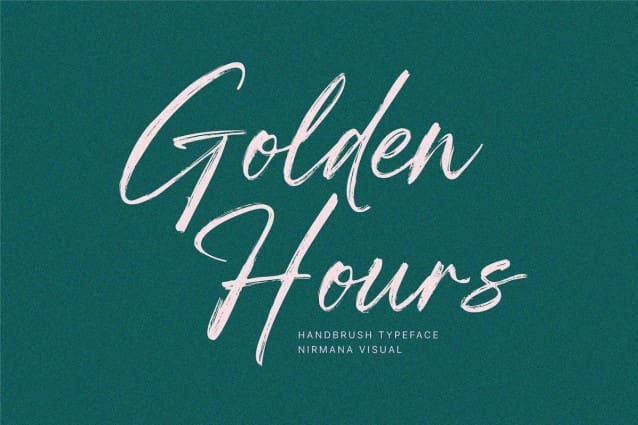
Golden Hours Font
Golden Hours Font is a Natural Brush handwriting modern calligraphy font. Full set of lowercase and uppercase letters, numerals and punctuation, multilingual symbols, lowercase.